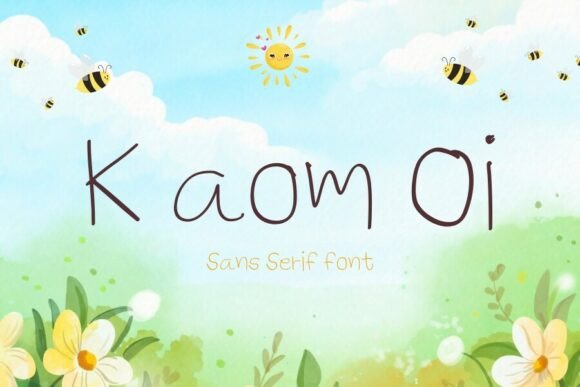
How K Aom Oi Transforms Small Business Branding
I still remember the afternoon I sat at my kitchen table, staring at a stack of plain white candle jars that felt more like laboratory samples than the cozy, handmade treasures I wanted to sell. I had the wax perfect and the scents dialed in, but the labels looked stiff and impersonal. That was the moment I realized my brand needed a voice that matched the warmth of my products, which led me straight to K Aom Oi, a stunning addition to the world of Script Handwritten Fonts that instantly changed how my business presented itself to the world.
Bringing Sunny Meadow Vibes to Product Packaging
When you are trying to connect with customers on an emotional level, the right typography does half the work for you, and this is exactly where K Aom Oi shines as a versatile tool within the category of Script Handwritten Fonts. The description says it best: radiate warmth and friendliness with the Kaom Oi font, a lighthearted and airy handwritten typeface that feels like a sunny day in the meadow. For my candle business, switching from a standard block font to this specific style made the packaging feel inviting before the customer even smelled the product. The Kaom Oi typeface is defined by its tall, thin letterforms, which give it a delicate and elegant appearance without feeling fragile or hard to read. This specific visual trait allows small business owners to create labels that look premium and thoughtful, turning a simple jar into a gift-worthy item that people want to display in their homes.
Elevating Social Media Graphics with Airy Handwritten Style
In the digital space, consistency is key to building trust, and integrating K Aom Oi into your social media strategy alongside other essential Script Handwritten Fonts can unify your entire online presence. I started using this typeface for my Instagram story highlights and promotional posts, and the difference in engagement was noticeable because the visuals finally felt like "me." Because the font feels like a sunny day in the meadow, it naturally draws the eye and creates a positive association with the brand message. Whether you are running a boutique clothing line, a bakery sharing daily specials, or a coaching service posting motivational quotes, this lighthearted and airy handwritten typeface adds a human touch that sterile corporate fonts simply cannot match. It works exceptionally well for short headlines, call-to-action buttons, and overlay text on photos, ensuring your content stands out in a crowded feed while maintaining a friendly and approachable tone.
Creating Memorable Logos with Tall Thin Letterforms
Your logo is often the first interaction a potential client has with your brand, so choosing a distinctive character from the Script Handwritten Fonts family like K Aom Oi can set you apart from competitors immediately. The unique structure of this typeface, defined by its tall, thin letterforms, offers a sophisticated yet playful aesthetic that works beautifully for lifestyle brands, beauty products, and artisanal goods. When I redesigned my logo using these specific curves and heights, it stopped looking like a generic template and started looking like a signature. This kind of personalization helps customers remember your name and associate it with quality and care. For entrepreneurs launching new ventures, using a font that radiates warmth and friendliness ensures that your brand identity feels accessible rather than intimidating, encouraging people to click, visit, and eventually buy.
Perfecting Thank You Cards and Customer Touchpoints
The unboxing experience is a critical moment for any online seller, and slipping a handwritten-style note printed with K Aom Oi among your Script Handwritten Fonts collection can turn a standard transaction into a memorable event. I began printing my thank-you cards and care instruction inserts using this lighthearted and airy handwritten typeface, and the feedback from customers was overwhelmingly positive. They often mentioned how much they loved the "personal note" feel, even though it was professionally printed. This demonstrates the power of typography to simulate human connection; when the Kaom Oi typeface is defined by its tall, thin letterforms, it mimics the natural flow of careful handwriting, making the recipient feel valued. Whether you are including stickers in a subscription box, writing messages on bakery boxes, or creating warranty cards for handmade jewelry, this font helps bridge the gap between a digital purchase and a physical relationship.
Pairing Strategies for Menus and Web Banners
While K Aom Oi is a star on its own, knowing how to pair it with other Script Handwritten Fonts or complementary styles is essential for creating balanced and readable designs for menus and websites. Because this font radiates warmth and friendliness with the Kaom Oi font, a lighthearted and airy handwritten typeface that feels like a sunny day in the meadow, it pairs beautifully with clean, modern sans-serif fonts for body text to ensure readability on mobile screens and printed materials. For a café owner, using this typeface for drink names on a chalkboard menu while keeping the descriptions in a simple geometric font creates a hierarchy that is both stylish and functional. Similarly, for web design, using these tall, thin letterforms for headers and navigation elements adds personality without cluttering the interface. Remember that while it is excellent for display text and decorative accents, it is best used for headlines and short phrases rather than long paragraphs to maintain its impact and legibility.